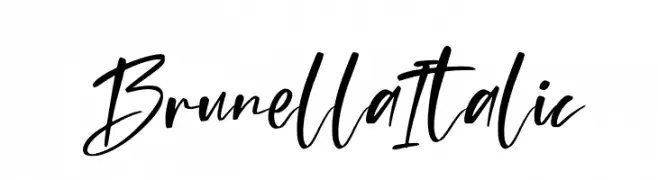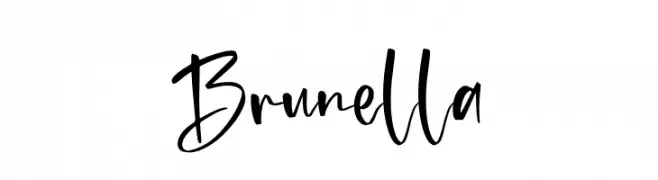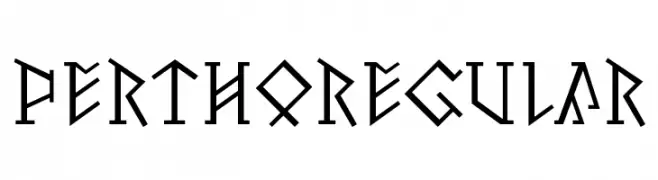
A bold, cursive font with a flowing, handwritten style.
A bold, italic script font with a flowing, connected style.
An elegant, cursive script font with flowing curves and delicate flourishes.
An elegant, high-contrast cursive font with dynamic slant and intricate swashes.
A lively, expressive script font with a modern, handwritten style.
A dynamic, cursive script font with fluid, expressive strokes.
A bold, angular font inspired by ancient runic alphabets.
A playful and dynamic script font with a handwritten feel.